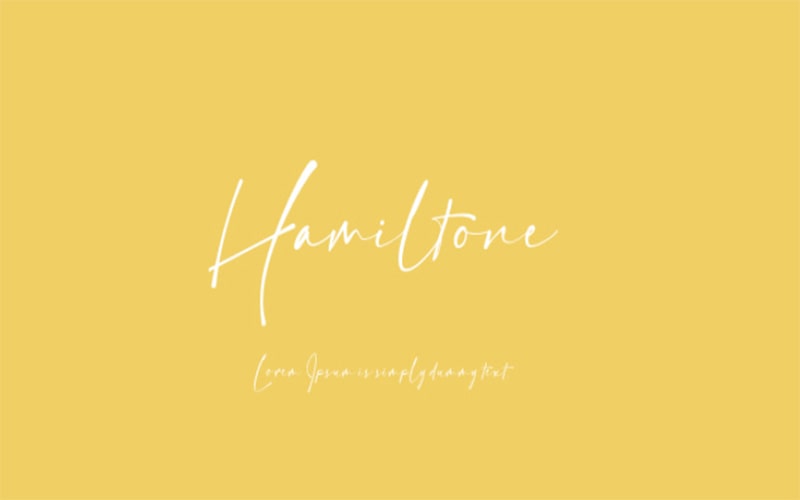
Hamilton Demo font is a Script, Handwritten typeface. It has come with slim, slight, combined, and modish letters that make this typeface superfine and more glorious.
Lemonthe-Dwi Ahidian is known as the primary designer who took charge to design this typeface for the first time on October 12, 2020.
After a few modifications, it was updated on September 25, 2022. This ornamental font contains more than 200 defined characters.
This handwritten font contains only 1 style such as the “Hamilton Demo Regular” font. It supports 2 international languages such as English and Zulu.
Hamiltone Demo Font
| Font Name: | Hamiltone Demo Font |
| Style: | Script, Handwritten, Typeface |
| Font Designer: | Lemonthe-Dwi Ahidian |
This good-looking and eye-catching font is perfectly designed for many stylish purposes including graphical projects, product packaging, and set background images.
You can also use it for business cards, logos, advertising, mobile apps for companies, t-shirts, books, websites, posters, and many more.
A delicate free version font is available in 151 beautifully designed characteristics including all lowercase and uppercase letters, numbers, and punctuation marks.